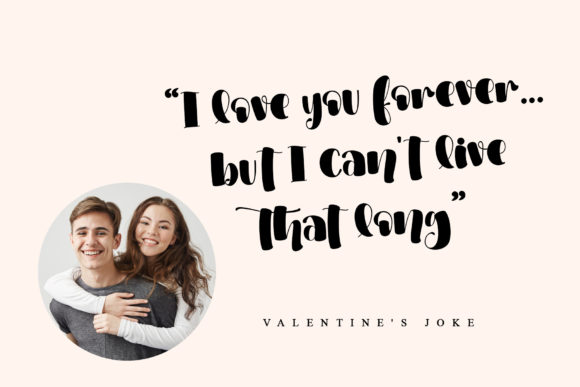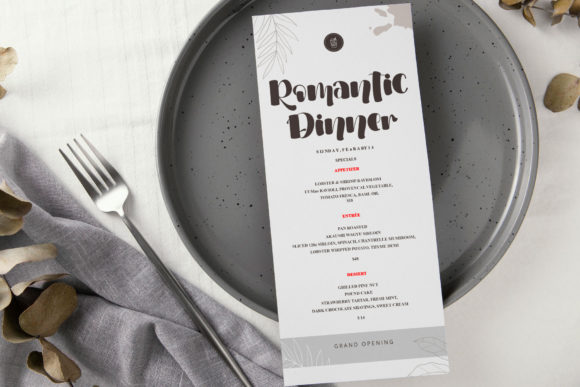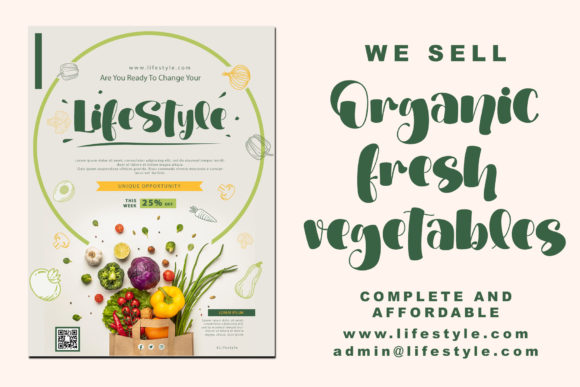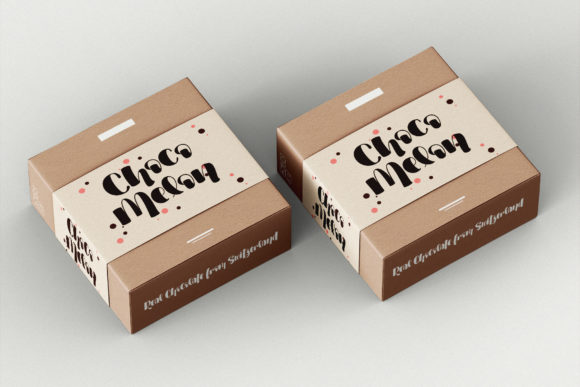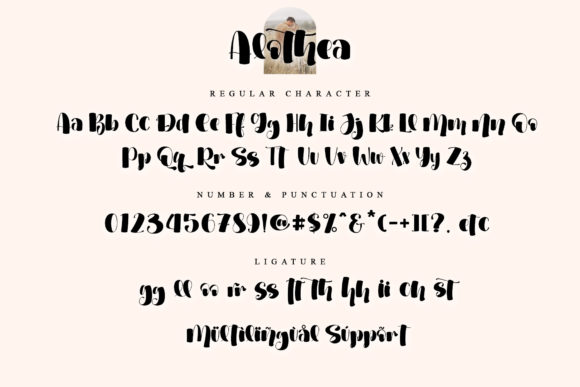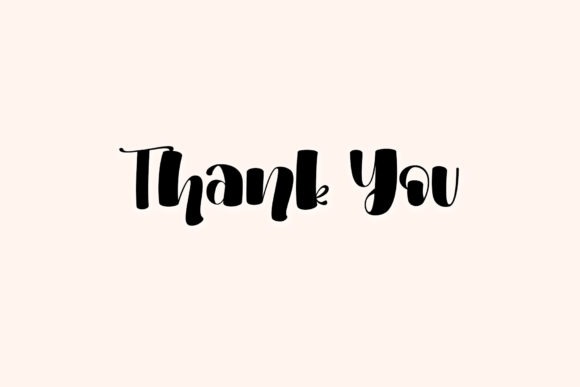
The Perfect Match for Your Creative Masterpieces
Have you ever been in the middle of brainstorming a project, and suddenly, the perfect font pops into your head? It’s that ‘aha’ moment when everything clicks, and your design starts to come alive. For designers like you, finding the right font can make all the difference between a mediocre project and a masterpiece. That’s where Alothea Font comes in – a friendly and modern script font that’s sure to elevate your creative ideas.
Alothea Font is more than just a pretty face; it’s a versatile tool that can be used for a wide range of projects, from elegant invitations to quirky advertisements. Its quirky style and beautiful design make it the perfect addition to any designer’s toolkit. With Alothea Font, you’ll be able to bring your ideas to life in a way that’s both stylish and effective.
Alothea Font Key Features
- Character Set: The font includes a wide range of characters, including Latin, Cyrillic, and Greek alphabets, as well as punctuation and symbols.
- Unique Characteristics: Alothea Font features a unique blend of modern and traditional design elements, with intricate details and subtle texture.
- Font Style: Alothea Font comes in 3 different font styles: Regular, Italic, and Bold, allowing users to choose the perfect style for their needs.
Alothea Font Review
I recently had the chance to work with the Alothea Font, and I must say, it’s a unique and interesting addition to any design project. ✨ One thing that stands out about this font is its versatility – it can be used for a wide range of applications, from body text to headings, and even logos. The font’s elegant, cursive style is sure to add a touch of sophistication to any design.
- ✨ Unique style**: Alothea Font’s cursive style sets it apart from more traditional fonts.
- ✨ Versatility**: The font can be used for a variety of applications, from body text to headings and logos.
- ✨ Elegant**: The font’s design is sophisticated and refined, making it perfect for formal designs.
However, there are some limitations to consider. ⚠️ The font may not be the best choice for projects that require a more modern or edgy feel. Additionally, some characters may not display properly in certain font sizes or resolutions.
Overall, I think Alothea Font is a great choice for designers who are looking for a elegant, versatile font. While it may not be the best fit for every project, it’s certainly worth considering for designs that require a touch of sophistication.
Tips for Getting the Most Out of Alothea Font
Here are some tips to get the most out of Alothea Font:
- Use the font for headings and titles to create visual hierarchy
- Pair Alothea Font with a clean sans-serif font for body text
- Experiment with different font sizes and colors to create visual interest
Alothea Font is ideal for:
- Graphic design and visual identity
- Web design and digital
Alternatives to Alothea Font
Compared to Alothea Font, Playfair Display has a more ornate and sophisticated look. It’s ideal for designs that require a touch of elegance and sophistication, whereas Alothea Font is more versatile and suitable for a wide range of designs.